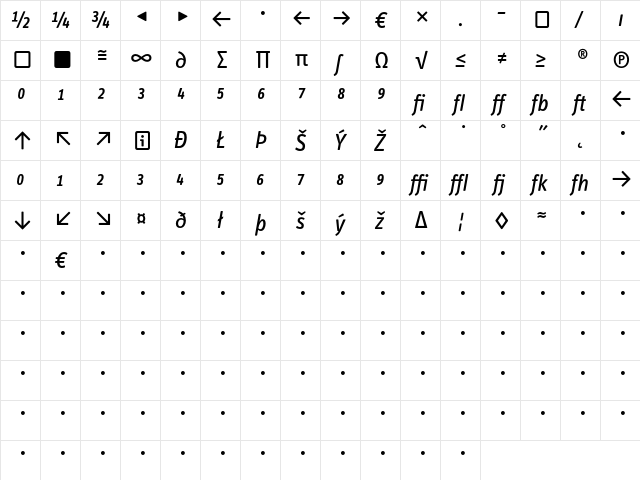
InfoTextBook ItalicExp
Design Context for InfoTextBook Typeface
InfoTextBook is a composed and adaptable typeface that performs quietly and consistently across a wide range of design contexts. The slanted form adds forward momentum and visual energy.
Pro Tip: Try InfoTextBook for annotation and caption copy alongside an upright companion — the contrast in angle creates a dynamic but ordered typographic system.